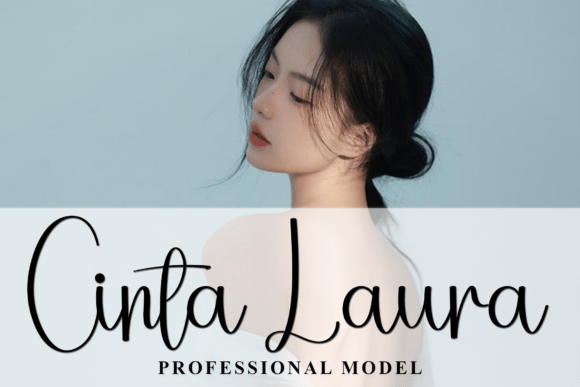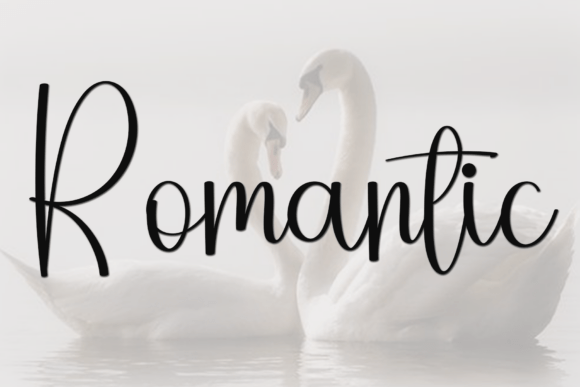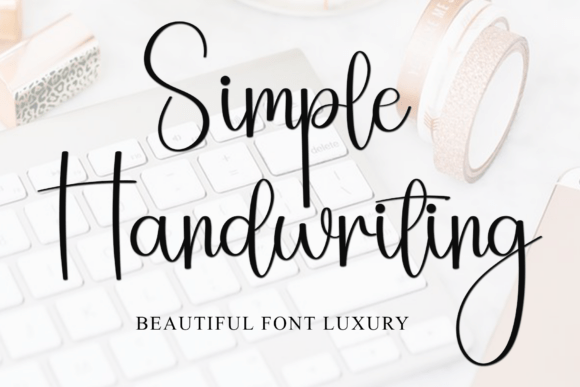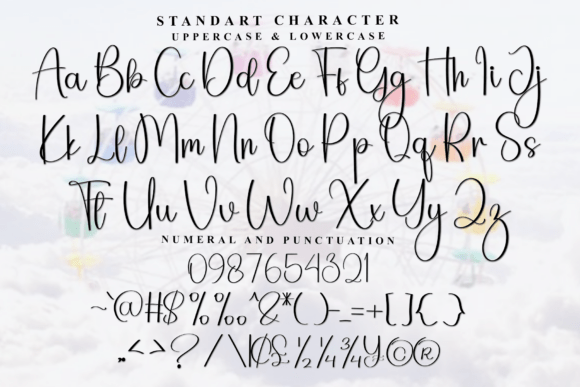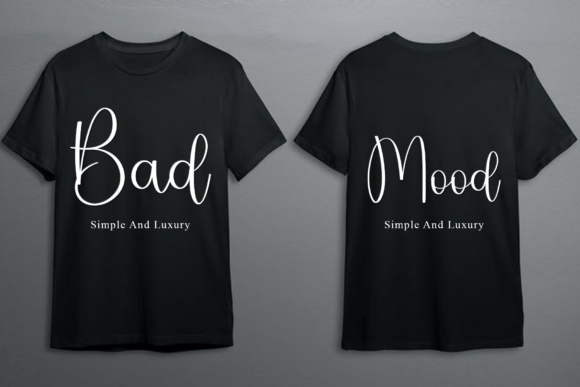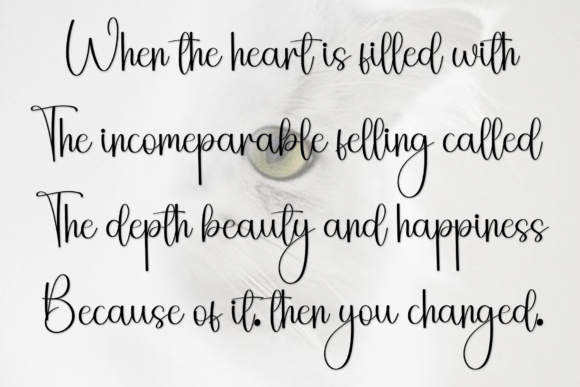
The Darling Font: A Designer’s New Best Friend
I still remember the frustration of working on a design project, hours spent searching for the perfect font, only to come up empty-handed. My client wanted something unique, something that would make their brand stand out, but I just couldn’t find it. That was until I stumbled upon the Darling font. With its soft, unique touch and distinctive strokes, it quickly became my go-to for a wide range of design projects.
An Honest Review of Darling Font
So, what makes Darling font so special? Let’s dive into the good stuff and, of course, a few quirks I’ve noticed.
What I Love About Darling Font
- ✨ Unique and Eye-Catching Design: The soft, unique touch of Darling font makes it a standout in any design project.
- ✅ Versatility: Its distinctive strokes give it a special character, making it meaningful and versatile for future use.
- 🌈 Variety of Characters: With various characters, it’s perfect for design projects, crafts, and other creative works.
While Darling font is amazing, there are a few things to keep in mind:
- 🤔 Limited Use in Small Sizes: Darling font can get a bit tricky to read in very small sizes, so it’s best used for headlines or larger text.
- ⚠️ Dependence on OpenType Features: Some of the advanced features of Darling font require OpenType support, which not all applications offer.
Exploring Alternatives to Darling Font
While Darling font is stunning, it’s always good to have alternatives. Here are a few fonts that share a similar vibe:
- Lato: A modern sans-serif font with a sleek feel, perfect for digital and print designs.
- Merriweather: A classic serif font with elegant strokes, great for body text and headlines.
- Playfair Display: An elegant, luxurious font ideal for headlines and titles.
- Great Vibes: A script font with a friendly feel, suitable for creative and informal projects.
The Story Behind Darling Font
The story goes that Darling font was created by a designer who wanted to craft a typeface that was both beautiful and approachable. Inspired by handwritten notes and natural textures, Darling font brings a touch of warmth and personality to any design.
Q: Is Darling font suitable for body text?
A: While Darling font is stunning, it’s best used for headlines and larger text due to its unique design. For body text, consider a more traditional font for readability.
Q: Does Darling font support OpenType features?
A: Yes, Darling font comes with OpenType features, including stylistic alternates and glyphs, which can be accessed in compatible applications.